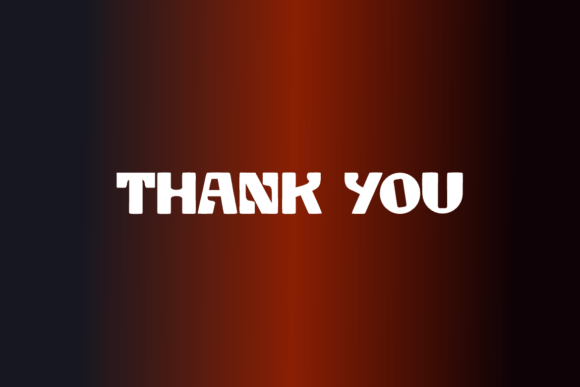
Froxcas Font: Elevate Your Creations with a Bold and Assertive Sans Serif Font
In the world of typography, fonts play a crucial role in conveying messages, expressing emotions, and creating visual identities. With the vast array of fonts available, it can be challenging to find the perfect one that suits your creative needs. However, if you’re looking for a bold and assertive sans serif font that can elevate your creations, look no further than Froxcas Font. In this article, we’ll explore the features, benefits, and uses of Froxcas Font, and why it’s an incredible asset to your font library.
What is Froxcas Font?
Froxcas Font is a modern sans serif font designed to make a statement. Its bold and assertive style makes it perfect for a wide range of applications, from headlines and titles to logos and branding. The font’s clean and minimalist design ensures that it remains legible even at smaller sizes, making it versatile for various uses.
Benefits of Using Froxcas Font
So, why should you consider adding Froxcas Font to your library? Here are some benefits that make it an attractive choice:
- Versatility: Froxcas Font can be used for a wide range of projects, from print materials like brochures and posters to digital applications like websites and social media graphics.
- Legibility: The font’s clear and simple design ensures that it remains easy to read, even at smaller sizes.
- Emotional Connection: The bold and assertive style of Froxcas Font can evoke emotions and create a strong connection with your audience.
- Uniqueness: With its modern and sleek design, Froxcas Font stands out from more traditional fonts, giving your creations a fresh and contemporary look.
Uses of Froxcas Font
Froxcas Font is an incredibly versatile font that can be used in various contexts. Here are some ideas to get you started:
- Headlines and Titles: Use Froxcas Font to create bold and attention-grabbing headlines that draw the reader’s attention.
- Logos and Branding: The font’s modern and sleek design makes it perfect for creating logos and branding materials that require a bold and assertive look.
- Posters and Flyers: Froxcas Font is ideal for creating eye-catching posters and flyers that require a bold and impactful look.
- Websites and Social Media: Use Froxcas Font to create engaging and modern website headers, social media graphics, and other digital materials.
Pairing Froxcas Font with Other Fonts
To create visually appealing and harmonious designs, it’s essential to pair Froxcas Font with complementary fonts. Here are some suggestions:
- Serif Fonts: Pair Froxcas Font with serif fonts like Georgia or Merriweather to create a striking contrast between bold and traditional.
- Script Fonts: Combine Froxcas Font with script fonts like Pacifico or Great Vibes to add a touch of elegance and sophistication.
- Display Fonts: Pair Froxcas Font with other display fonts like Arial Black or Impact to create a bold and dramatic look.
Tips for Using Froxcas Font
To get the most out of Froxcas Font, here are some tips to keep in mind:
- Use it sparingly: Froxcas Font is a bold font, so use it sparingly to avoid overwhelming your design.
- Experiment with sizes: Play with different font sizes to create visual hierarchy and emphasize important information.
- Consider the context: Take into account the context in which you’ll be using Froxcas Font, and adjust the font size, color, and style accordingly.
In conclusion, Froxcas Font is an incredible asset to your font library, offering a bold and assertive sans serif font that can elevate any creation. Its versatility, legibility, and emotional connection make it perfect for a wide range of applications. By following the tips and suggestions outlined in this article, you can unlock the full potential of Froxcas Font and take your designs to the next level.